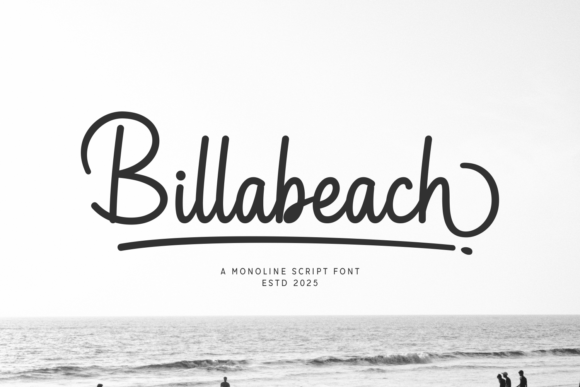
The Ultimate Relaxation: Discovering the Billabeach Font
I’ll never forget the summer I spent working on a branding project for a beachwear client. I was on a deadline, and my mind was as dry as the sand I was surrounded by. The client wanted a font that captured the laid-back, effortless vibe of a beachside hangout, but I was stuck. That’s when I stumbled upon Billabeach – a monoline script font that screamed relaxation and fun. It was like the designer had read my mind (and my client’s brief). In this article, I’ll dive into what makes Billabeach a must-have for designers, crafters, and creative hobbyists.
First Impressions: A Love Letter to Billabeach
Billabeach is more than just a font – it’s an experience. Its smooth, rounded strokes and playful swashes bring a casual charm that’s both modern and approachable. Here are a few things I love about Billabeach:
• ✨ Smooth, breezy vibe: Perfect for beachy brands, surf apparel, summer flyers, or relaxed social media content.
• ✅ Effortlessly stylish: Every word feels like it’s written in the sand – carefree and full of personality.
• 💫 Playful swashes: Add a touch of whimsy to your designs with Billabeach’s beautiful swashes.
The Not-So-Perfect: A Few Quirks
No font is perfect, and Billabeach is no exception. Here are a few things to keep in mind:
• 🤔 Legibility at small sizes: Billabeach can get a bit fuzzy at very small sizes, so make sure to test it out before committing.
• ⚠️ Limited use cases: While Billabeach is amazing for beachy, relaxed designs, it might not be the best fit for more formal or corporate projects.
3. Experiment with Stylistic Alternates and Swashes to add some personality to your text.
The Story Behind Billabeach
Billabeach was designed by a creative team that wanted to capture the essence of a beachside hangout. Inspired by the smooth curves of beachy driftwood and the playful scribbles of sand art, Billabeach is the perfect blend of relaxation and style.
What makes Billabeach unique? Billabeach’s smooth, rounded strokes and playful swashes bring a casual charm that’s both modern and approachable.
Is Billabeach suitable for formal designs? While Billabeach is amazing for beachy, relaxed designs, it might not be the best fit for more formal or corporate projects.
Does Billabeach come with OpenType features? Yes, Billabeach includes OpenType features like Stylistic Alternates and Swashes, giving you more creative control.